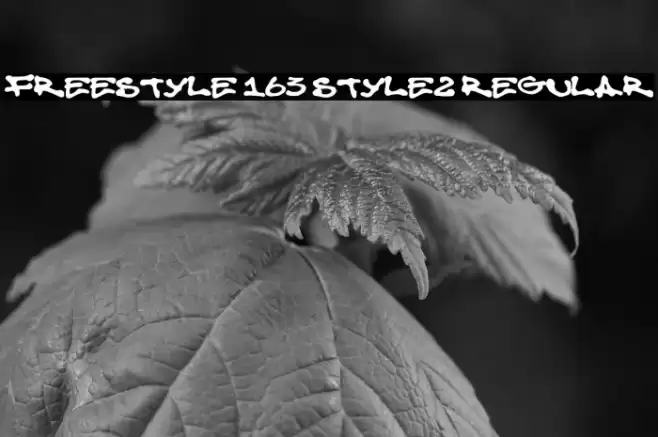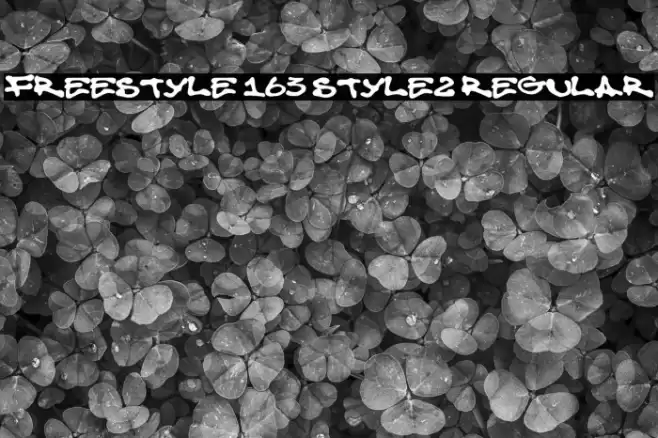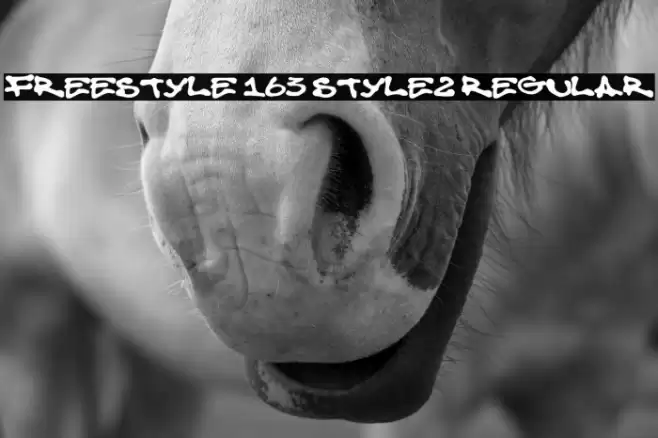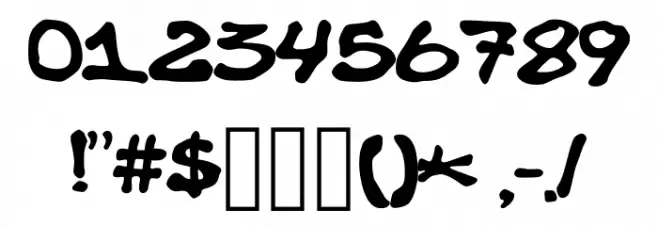
Freestyle 163 Style2 Regular Font
Freestyle 163 Style2 Regular Description
This font exhibits a bold and playful style with a handwritten appearance. The characters are rounded and slightly irregular, giving them a casual and friendly feel. The uppercase and lowercase letters maintain a consistent style, with a noticeable thickness that adds to the font's boldness. The numbers and special characters follow the same design principles, ensuring uniformity across all glyphs. This font's unique style makes it stand out, making it suitable for creative and informal projects.
A bold, playful handwritten font with rounded, irregular characters from Uncategorized fonts.
- Proposed Projects: Ideal for children's books, playful branding, casual invitations, and creative posters.
- Overall Style: Playful
- Use Case: Logos, Headlines, Posters